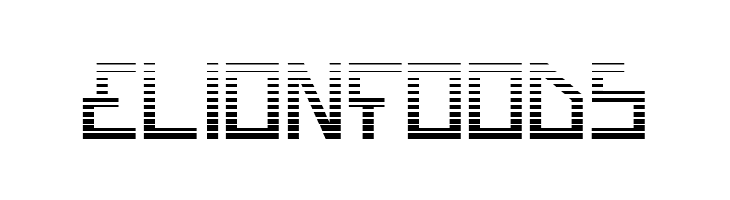
Radikal Font
Atomic Clock Radio Font
Font by Jacob Fisher - www.pizzadude.dk
A dot-matrix style font with a digital, retro aesthetic.
Code New Roman Bold Font
Font by Sam Radian
A bold, modern sans-serif font with clean lines and geometric structure.
D3 Radicalism Font
Font by www.DigitalDreamDesign.net
A bold, futuristic font with rounded edges and geometric shapes.
Radio Space Font
Font by Daniel Zadorozny - www.iconian.com
A futuristic, geometric font with clean lines and rounded corners.
RadiantAntique Font
A bold, decorative font with vintage, three-dimensional styling.
Radian Font
Font by dartcanada.tripod.com - Darren Rigby
A modern geometric font with rounded and angular elements, offering a clean and creative style.
Code New Roman Font
Font by Sam Radian
A modern, monospaced font ideal for coding and technical documents.
Radis Sans Font
Font by Gaël Goy - Personal-use only. For commercial use please contact owner.
A modern, geometric sans-serif font with smooth curves and consistent stroke width.
Radio Stars Font
A futuristic, geometric font with rounded edges and a bold style.
Radio Space Bold Font
Font by Daniel Zadorozny - www.iconian.com
A bold, futuristic font with geometric and tech-inspired design.
Radiant Free For Personal Use Font
scratchones
A bold, expressive script font with dynamic, flowing letterforms.
radiance Font
Font by Manuel Ramos - www.infinitismo.com - Personal-use only. For commercial use please contact owner.
A sleek, modern font with thin, geometric lines and minimalistic design.
CRU-Dissaramas Font
Operatype.Co
A whimsical and decorative font with curly, ornate letterforms.
Radium Font
Operatype.Co
A whimsical, curly handwritten font with a playful and creative style.
Radii Font
A modern, geometric font with clean lines and a minimalist aesthetic.
Code New Roman Italic Font
Font by Sam Radian
A modern, italicized font with clean lines and excellent legibility.
Radium Day-After J Font
A bold, distressed font with a rugged, brush-stroke appearance.
RadioStars-Regular Font
Font by www.typodermicfonts.com - Ray Larabie
A modern, geometric font with rounded edges and a futuristic style.
Crystal Radio Kit Font